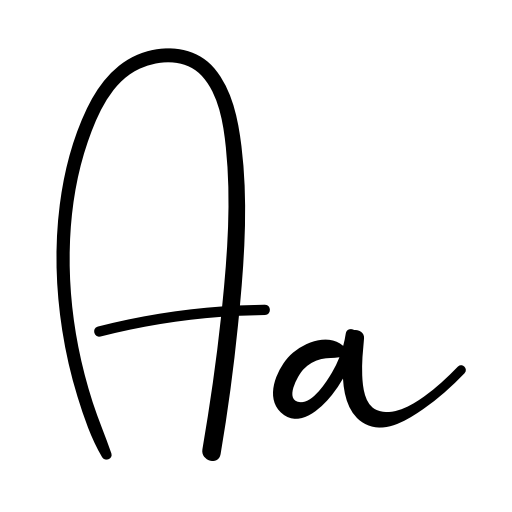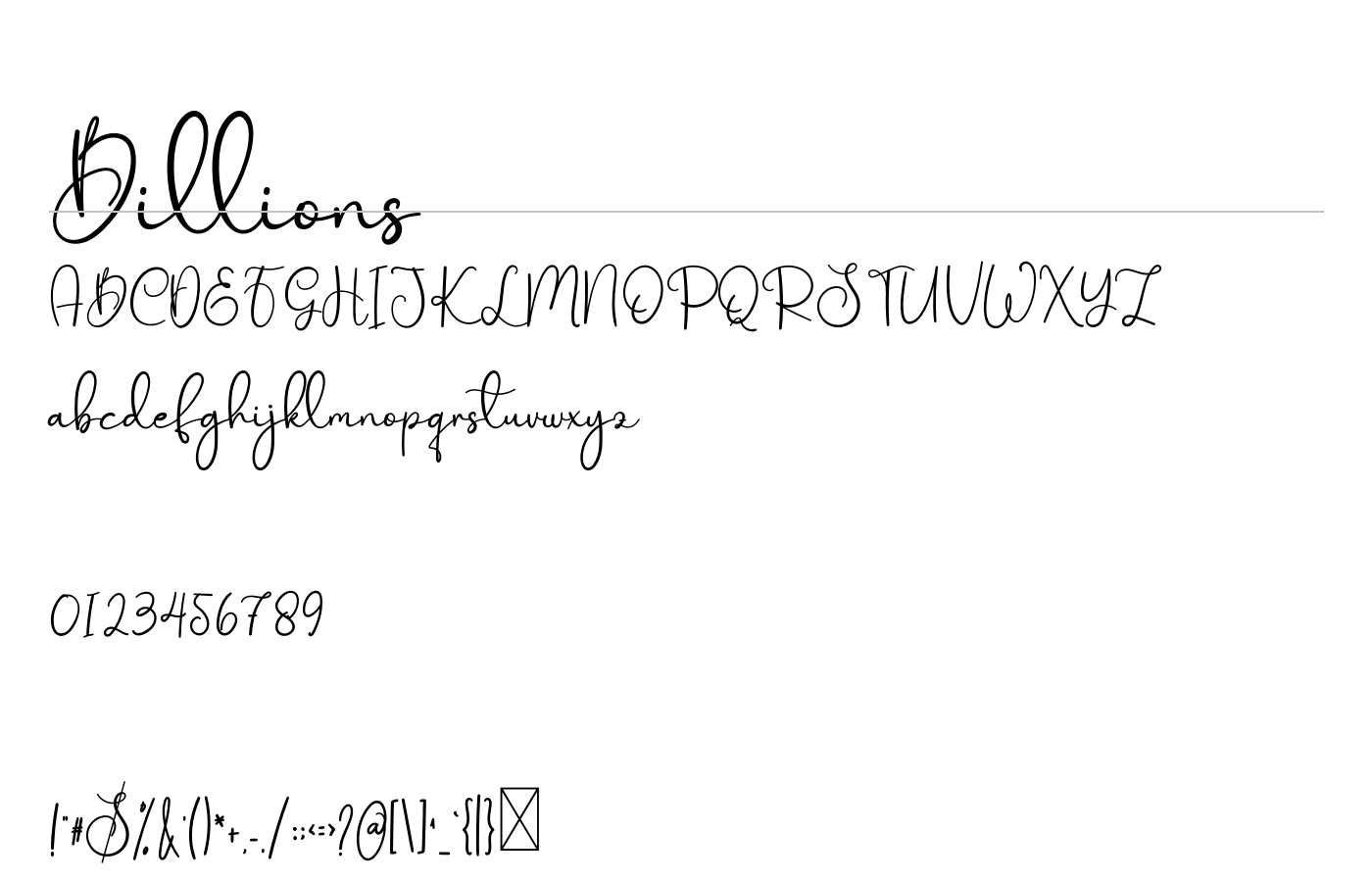
Billions Font is a delicate, handwritten script font with thin, elegant lines that convey a playful yet refined personality. Its tall, narrow letterforms with distinctive loops and swirls offer a charming, casual feel, making it ideal for invitations, personal branding, and creative projects that seek a graceful, approachable style. This font works beautifully in headlines and logos where a touch of uniqueness and hand-crafted warmth is desired.
Billions Font